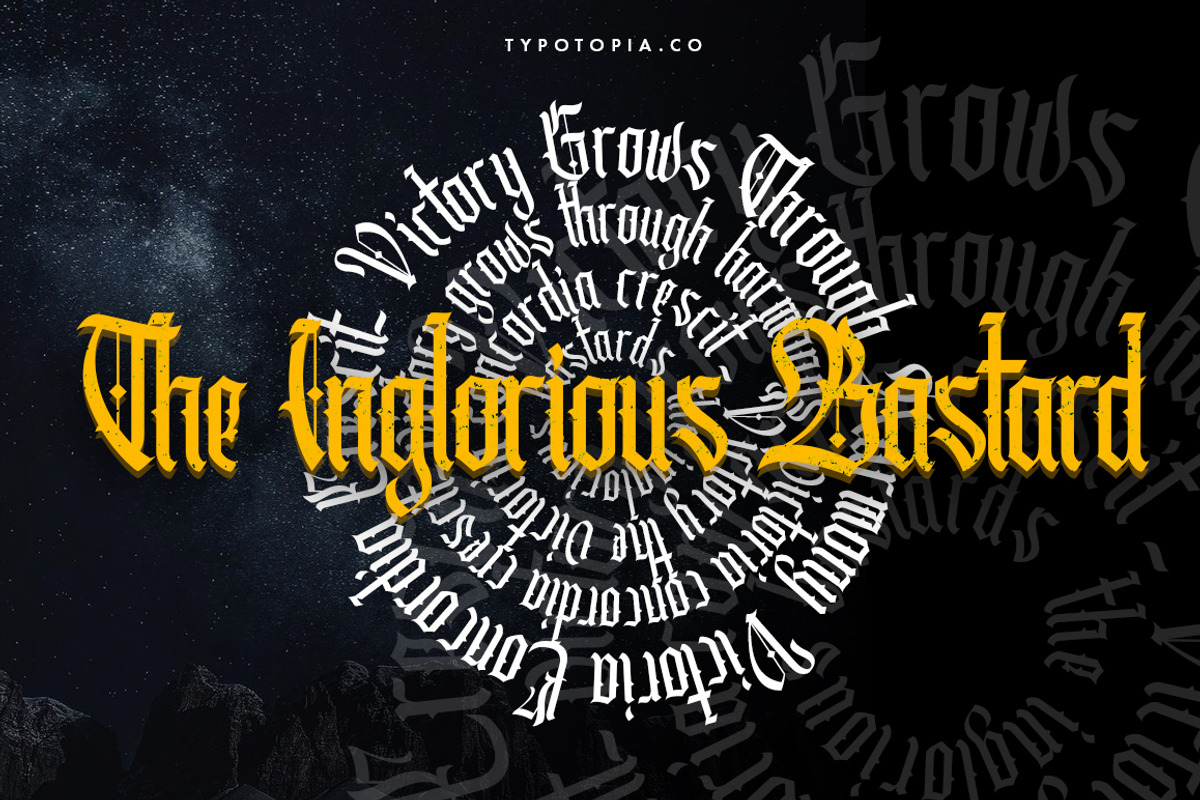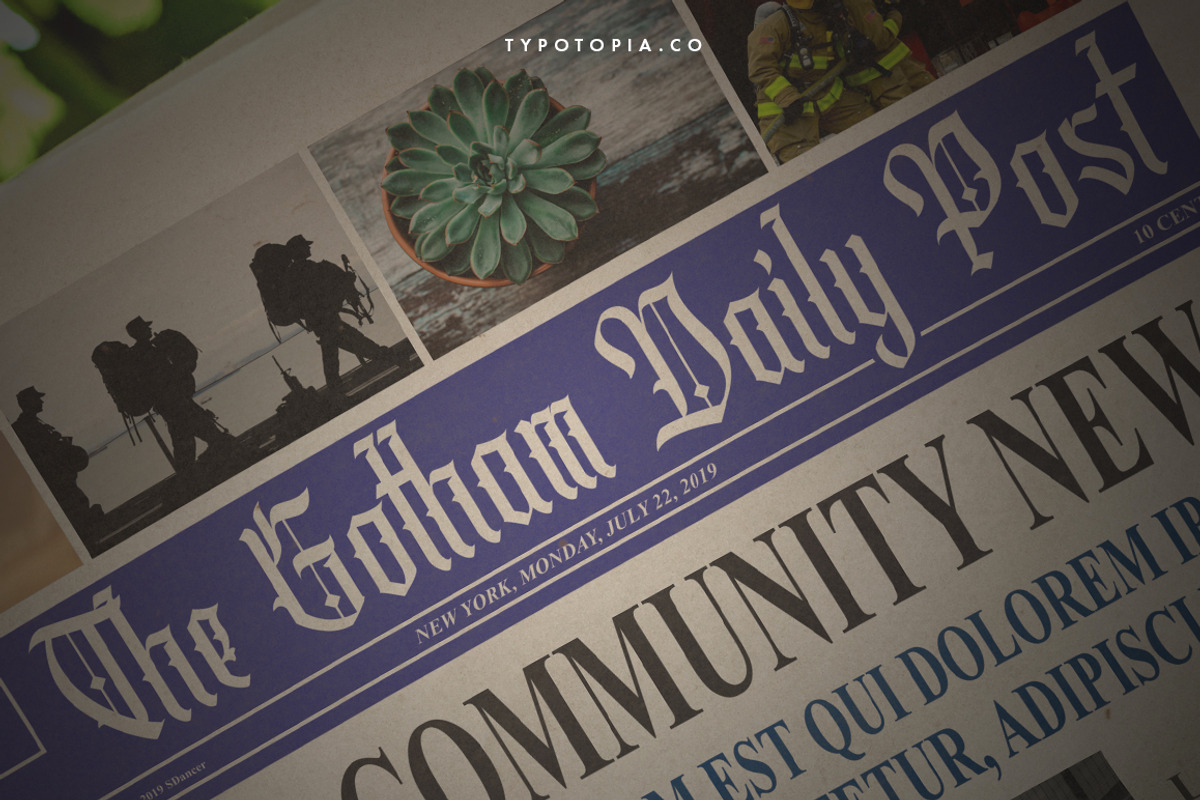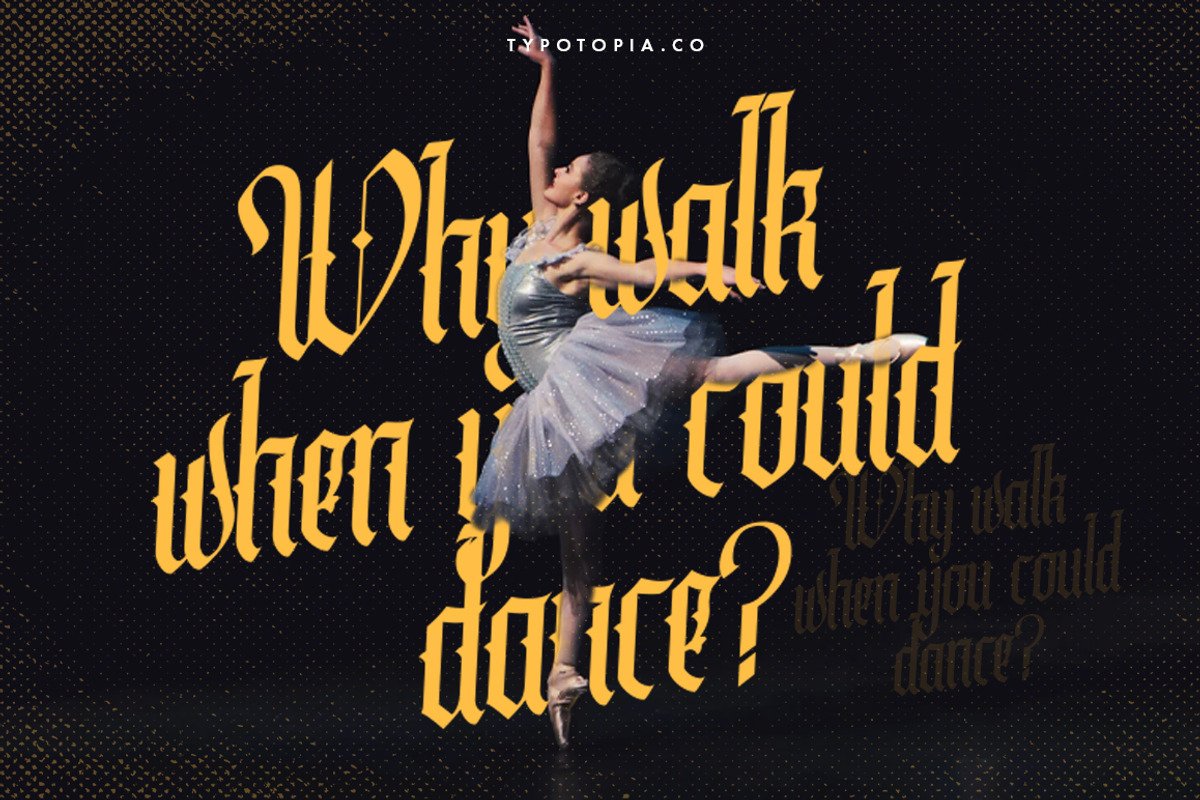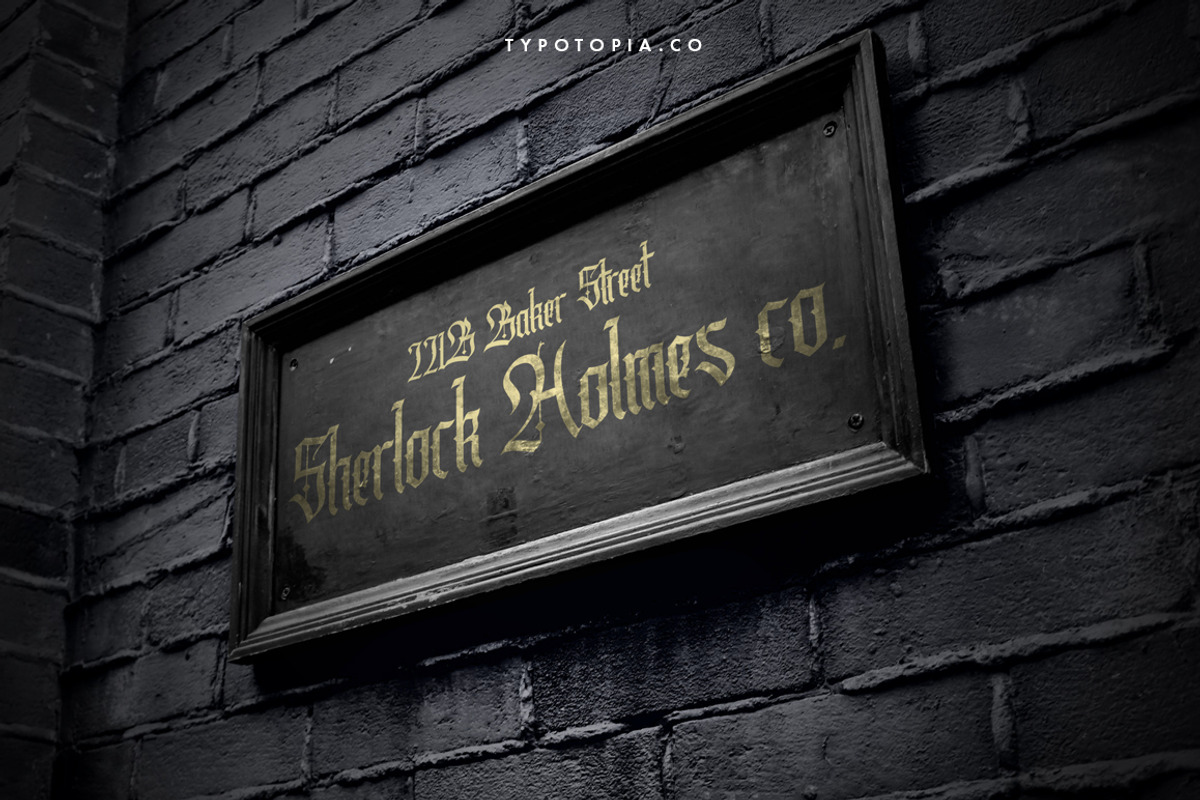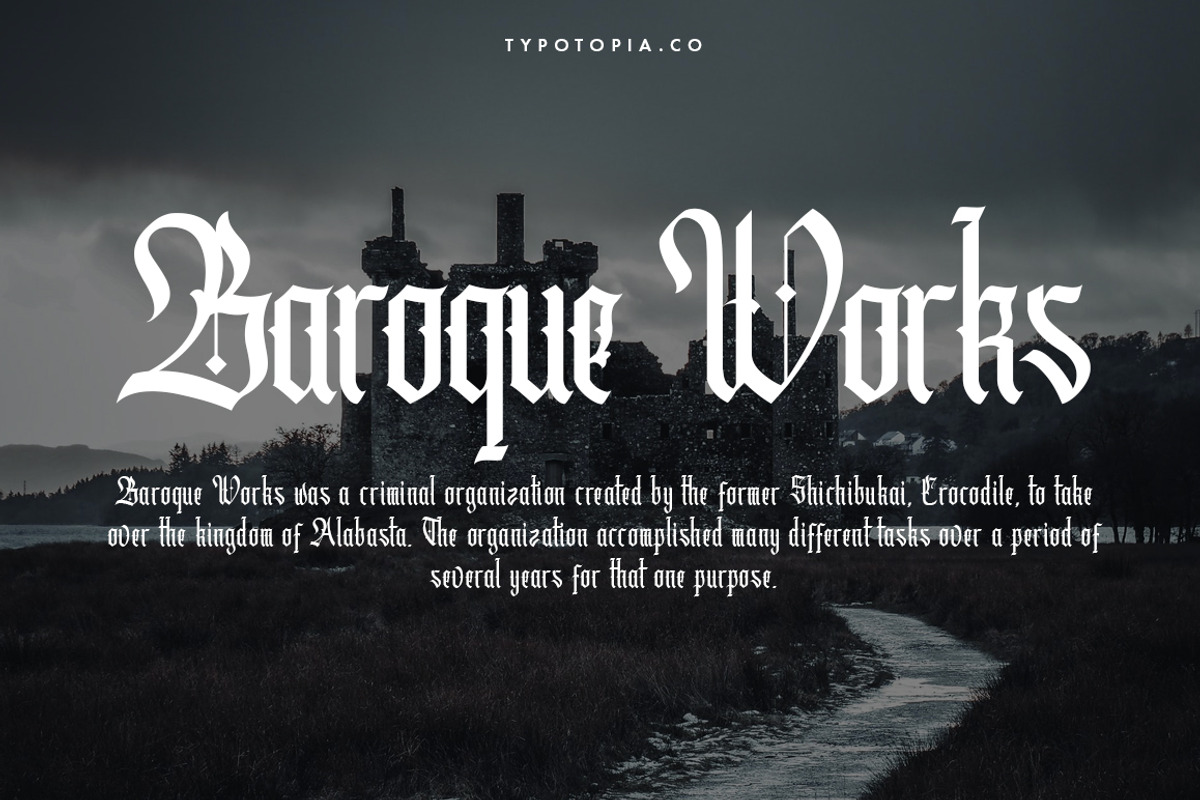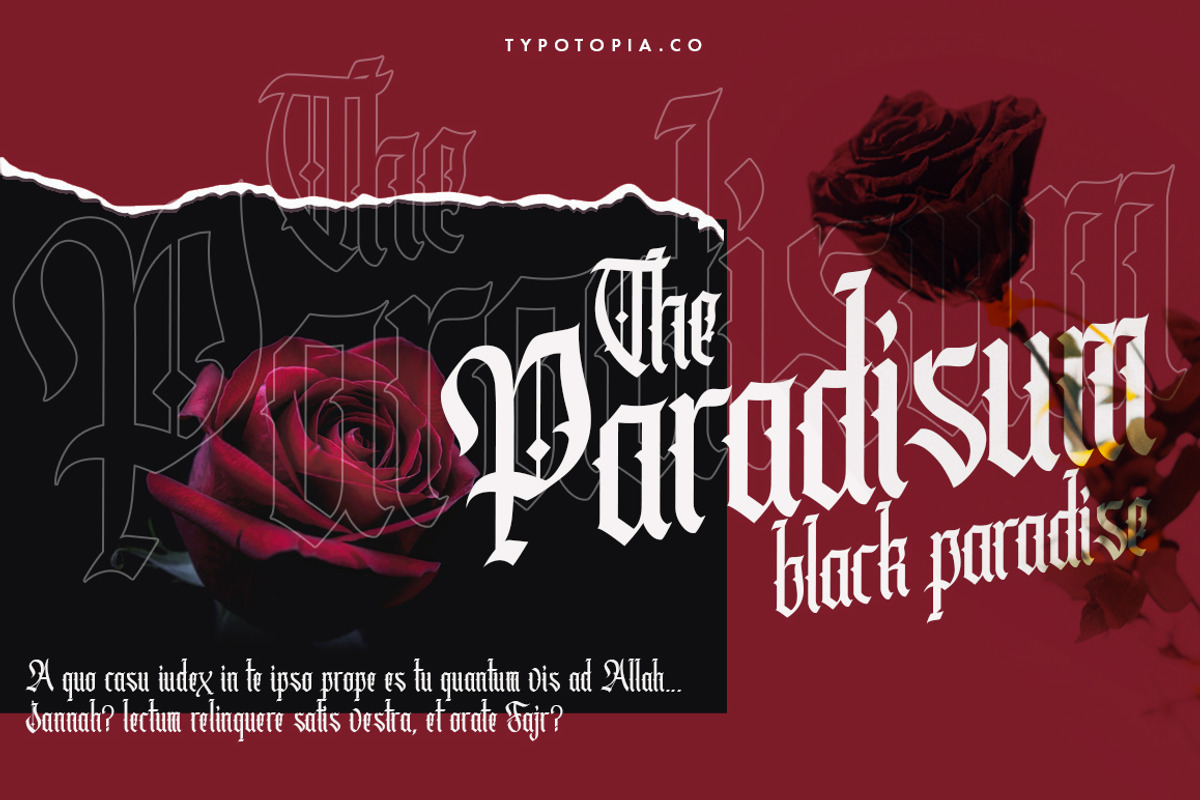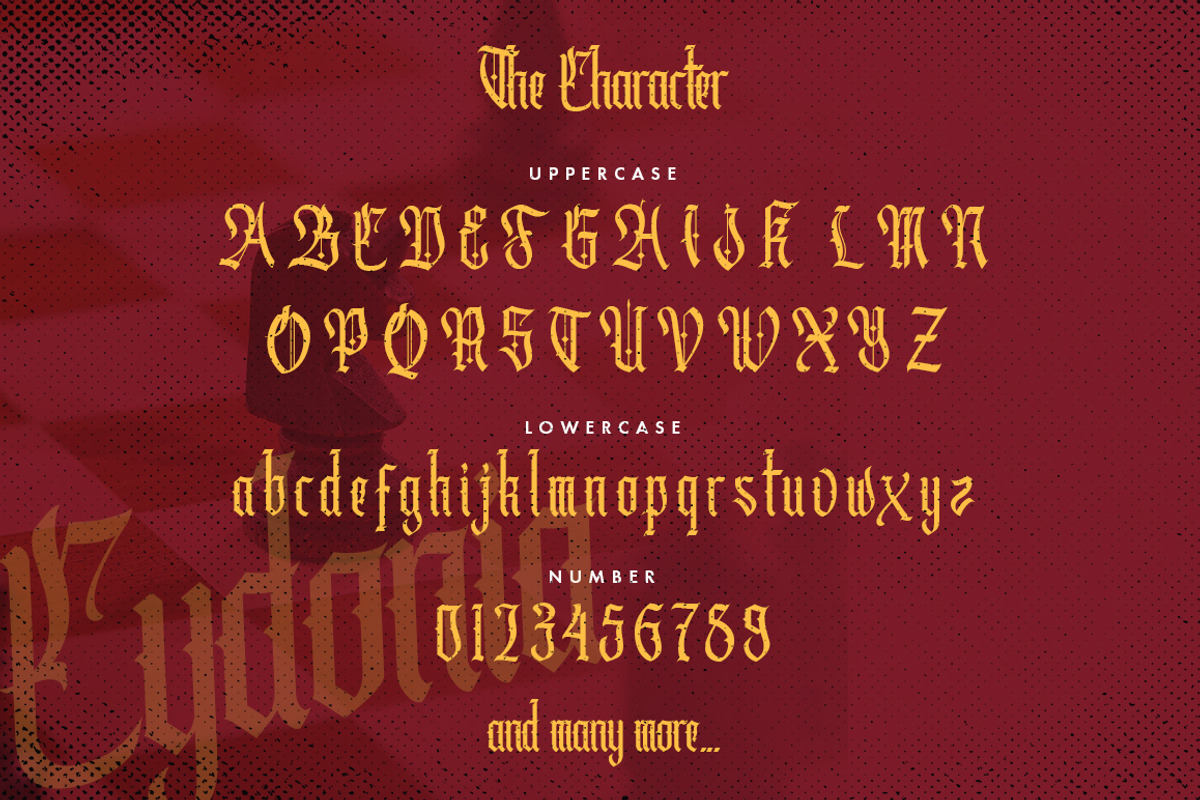
Cydonia - The Blackletter Font
Introducing Cydonia The Blackletter font, Cydonia is an unique blackletter for your design. This Font Includes uppercase, lowercase and punctuations and international characters. Cydonia also great choice for several purpose, it suitable for for headline, logotype, apparel, invitation, branding, packaging, advertising etc.
Cydonia also Support Multilingual Feature for Foreign Language, here’s the list :
áäåãéèëìïîòöôøùüAÀÁÂÃÄÅEÈÉÊËIÌÍÎÏNÑOÒÓÔÕÖUÙÜÚÛYÝŸ?Ÿ
What are the main Features on This Fonts :
Uppercase & Lowercase letters